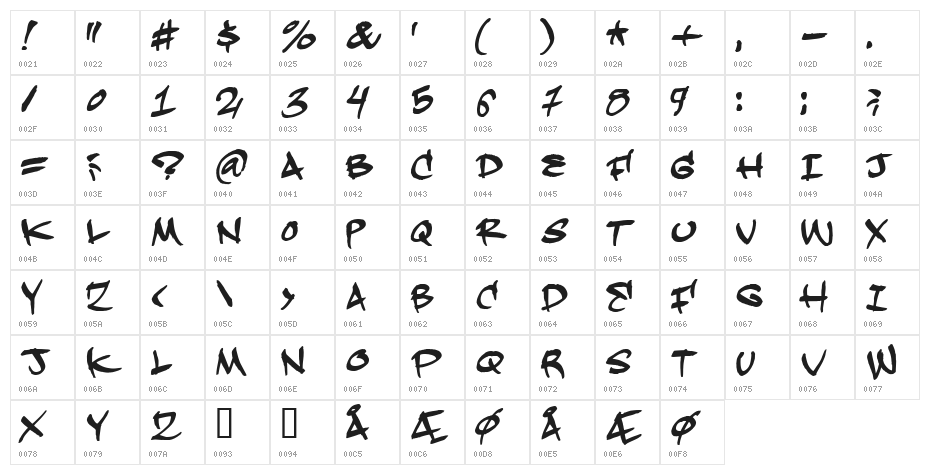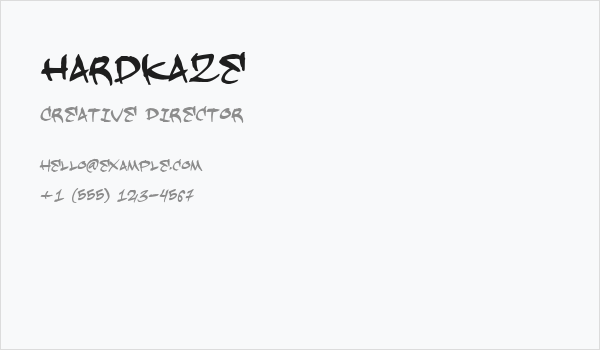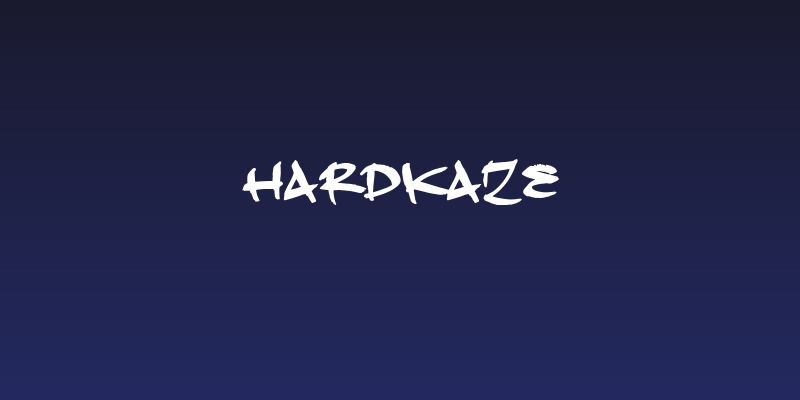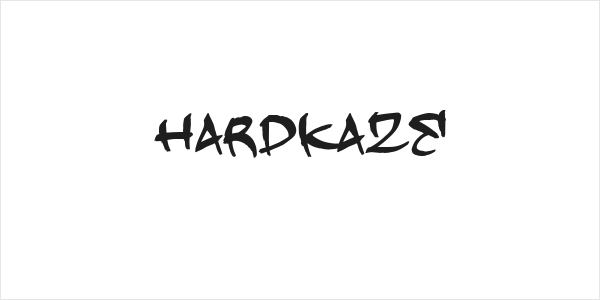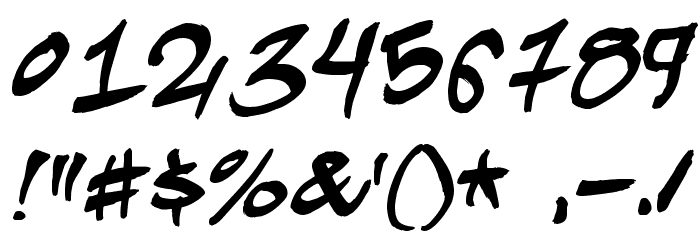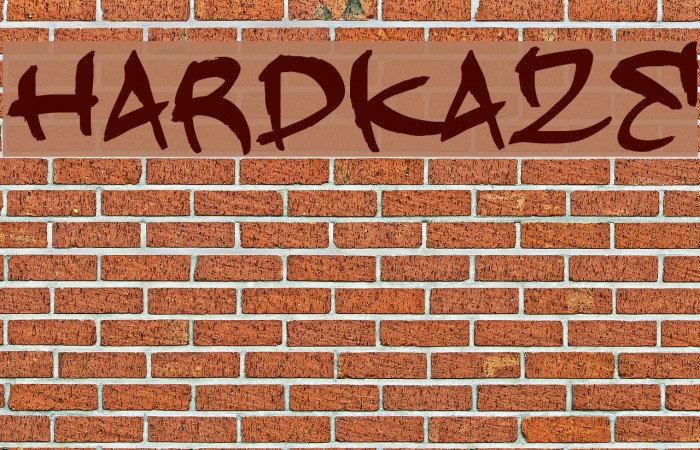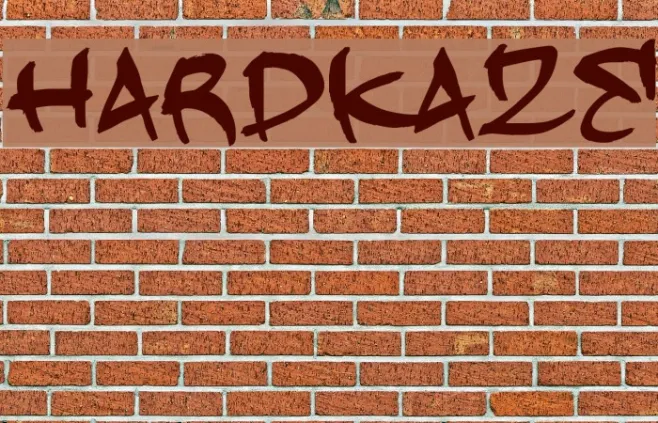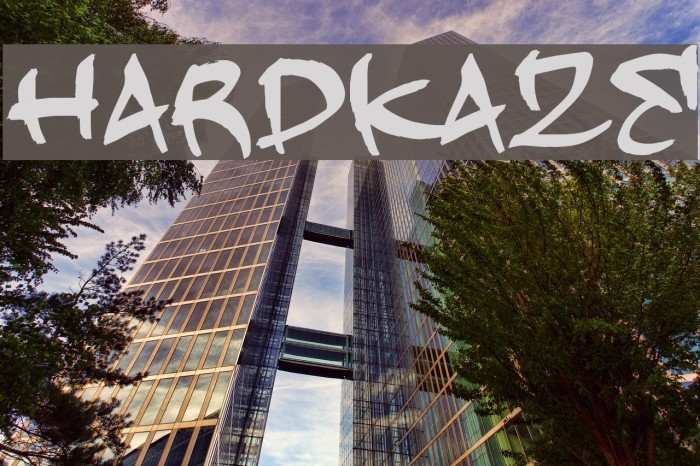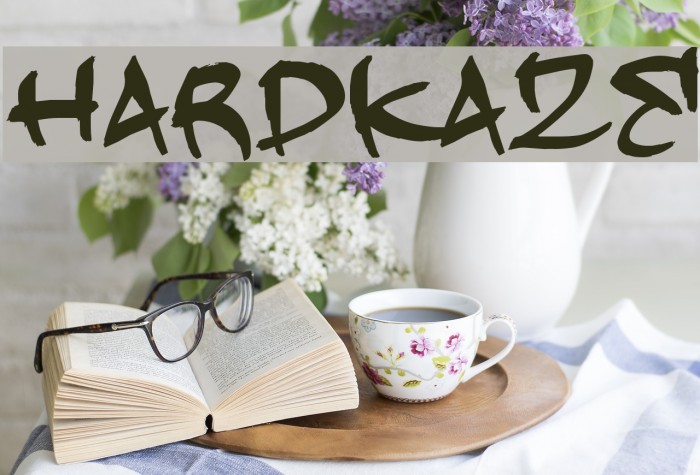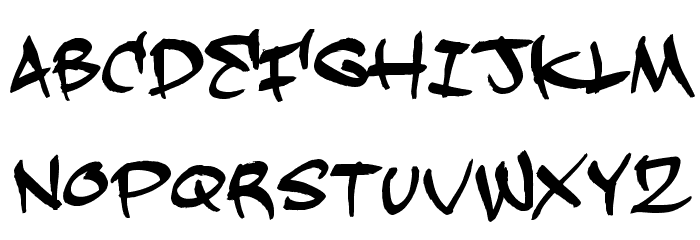
Hardkaze Font
Hardkaze Description
This font features a bold, energetic style with a hand-drawn appearance, characterized by its sharp, angular strokes and dynamic flow. The uppercase and lowercase letters maintain a consistent, lively rhythm, giving the text a sense of movement and spontaneity. The numerals and special characters are equally expressive, with a playful yet assertive presence. The overall design is reminiscent of graffiti or street art, making it ideal for projects that require a bold and unconventional aesthetic. The font's unique character is perfect for capturing attention and conveying a sense of creativity and rebellion.
| Overall Style | Modern, Urban |
| Proposed Projects | Ideal for street art designs, music album covers, posters, and branding that seeks a bold, creative impact. |